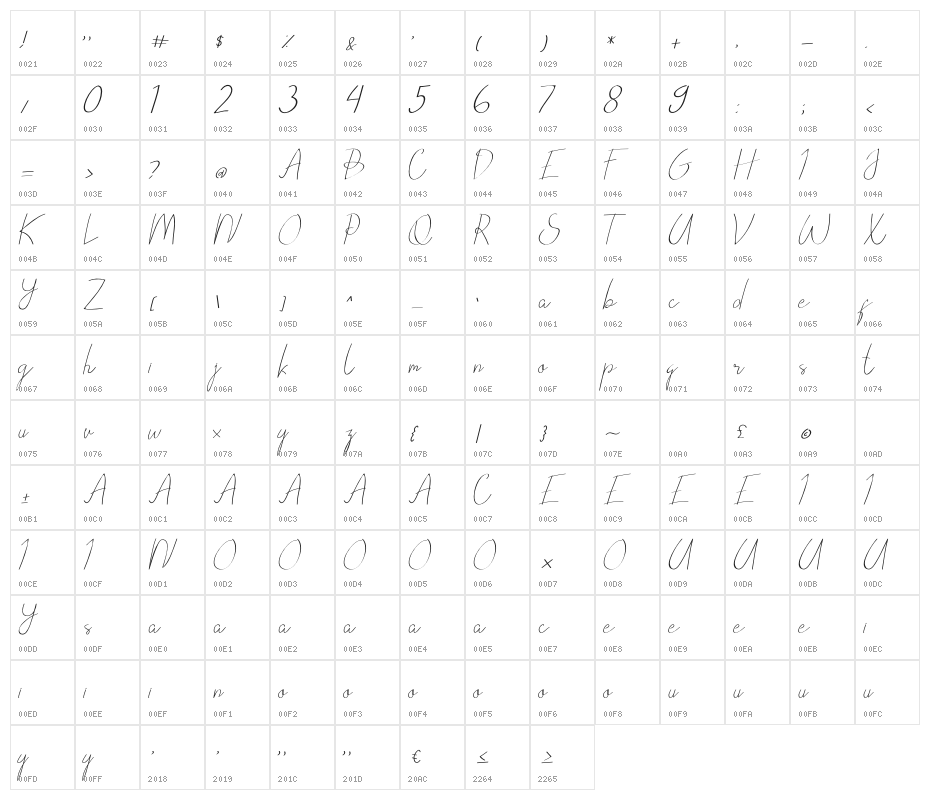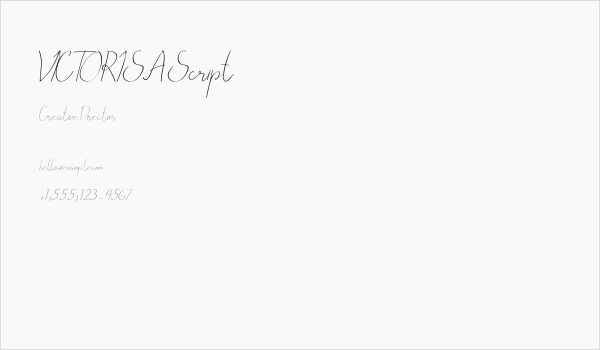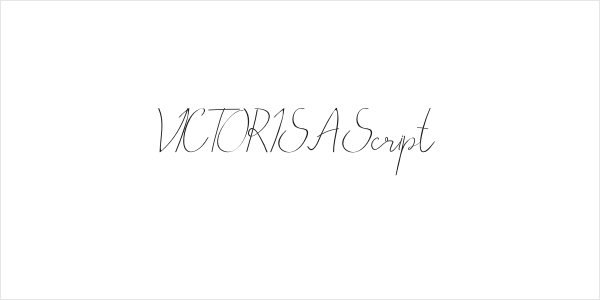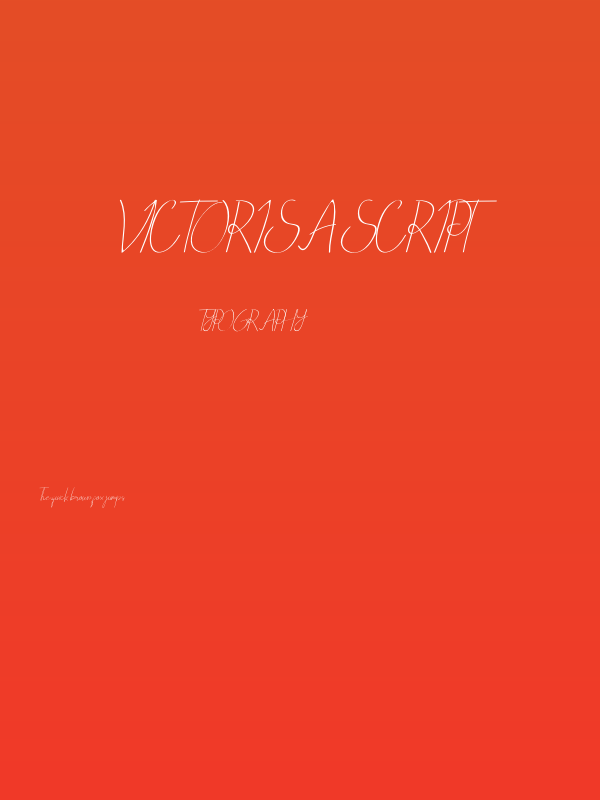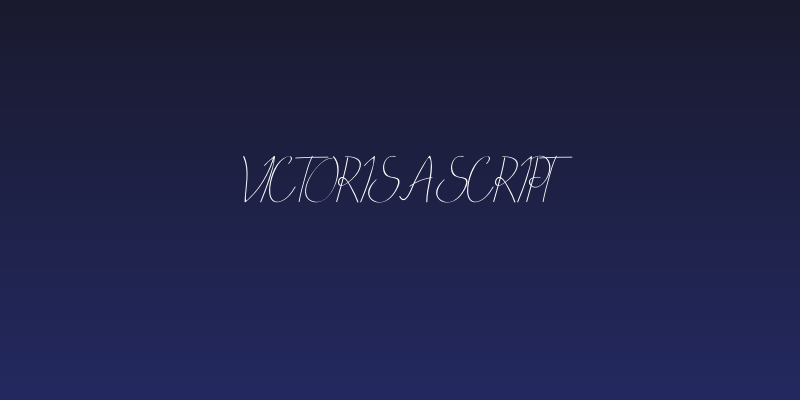
VICTORISA Script Font
VICTORISA Script Description
This elegant script font features a flowing, handwritten style with a modern twist. The uppercase letters are tall and slender, with a slight slant that adds a sense of movement and grace. The lowercase letters maintain a consistent flow, with delicate loops and curves that enhance the font's sophisticated appearance. Numbers and special characters are designed to complement the overall aesthetic, ensuring a cohesive look across all text elements. The thin strokes and high contrast between thick and thin lines give this font a refined and stylish feel, making it suitable for a variety of design applications.
| Use Case | Logos, Invitations, Branding |
| Proposed Projects | Ideal for wedding invitations, elegant branding, personal stationery, and upscale packaging. |